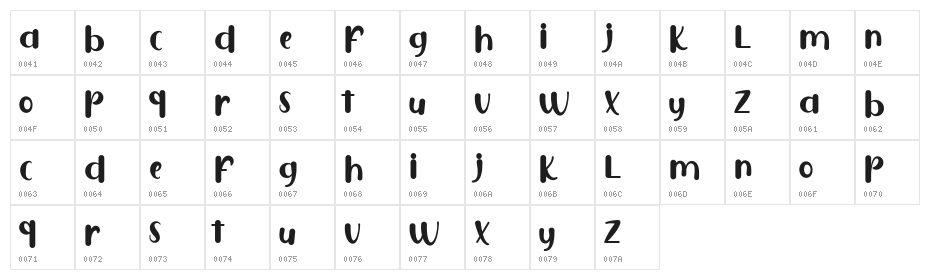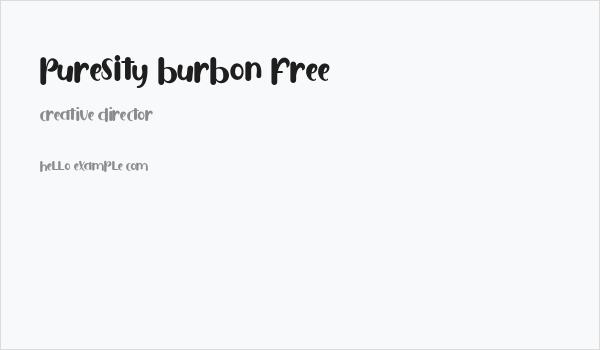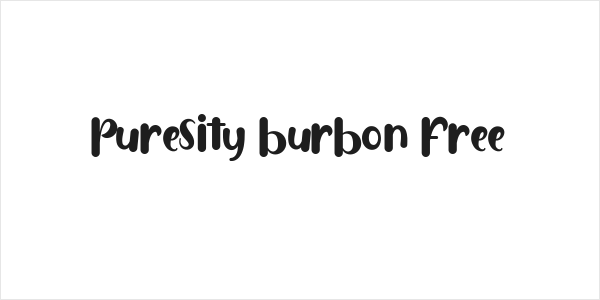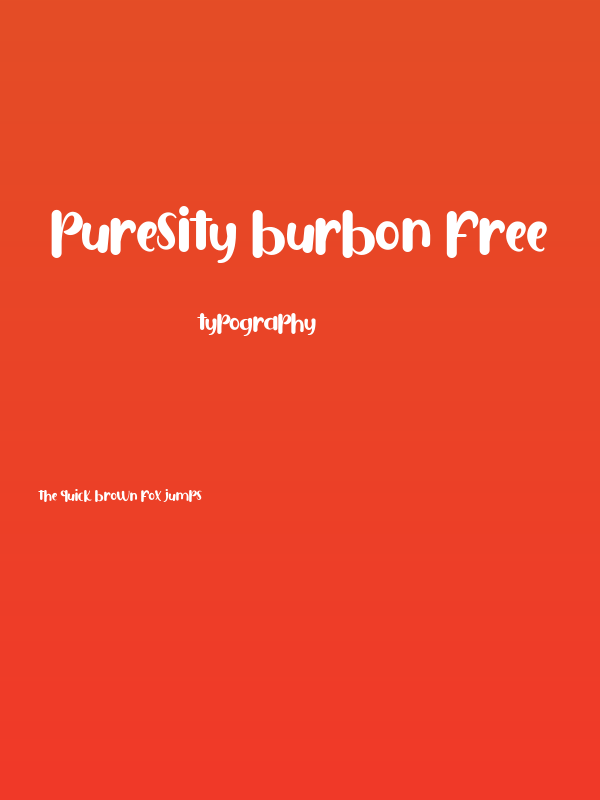
Puresity Burbon FREE Font
Puresity Burbon FREE Description
This font features a playful and bold style with a unique blend of rounded and sharp edges. The characters are thick and have a whimsical, almost cartoonish appearance, making them stand out prominently. The uppercase and lowercase letters maintain a consistent height, contributing to a cohesive look. The font's design incorporates a mix of smooth curves and angular lines, giving it a dynamic and lively feel. It is well-suited for creative projects that require a touch of fun and personality. The overall appearance is both modern and decorative, making it versatile for various design applications.
Overall StylePlayful, Modern, Decorative
Proposed ProjectsIdeal for children's books, playful branding, posters, and greeting cards.